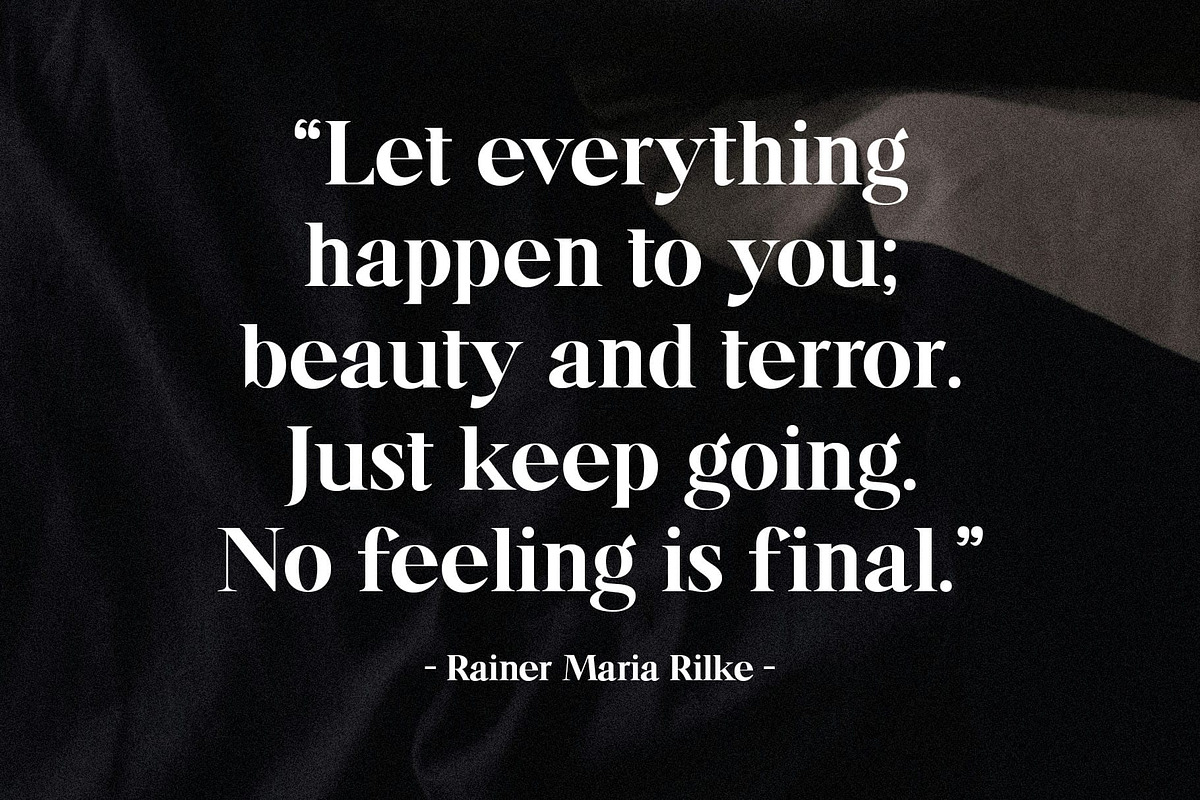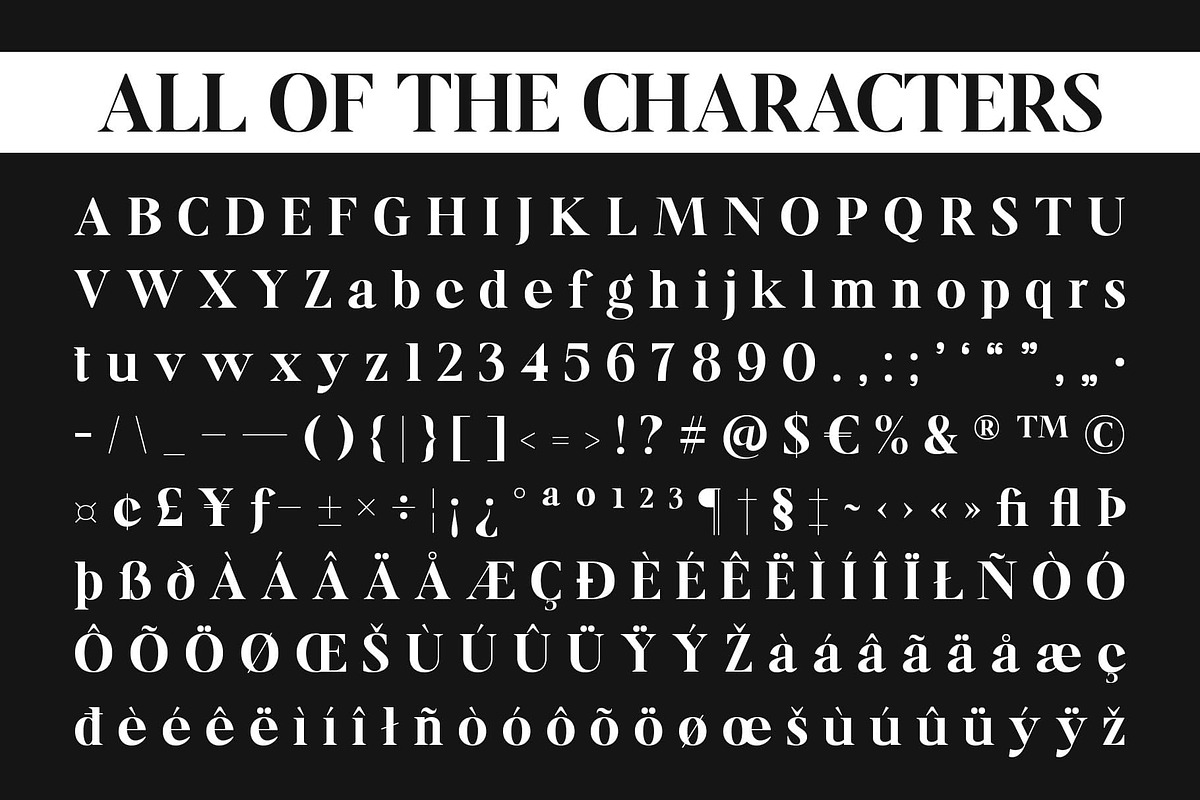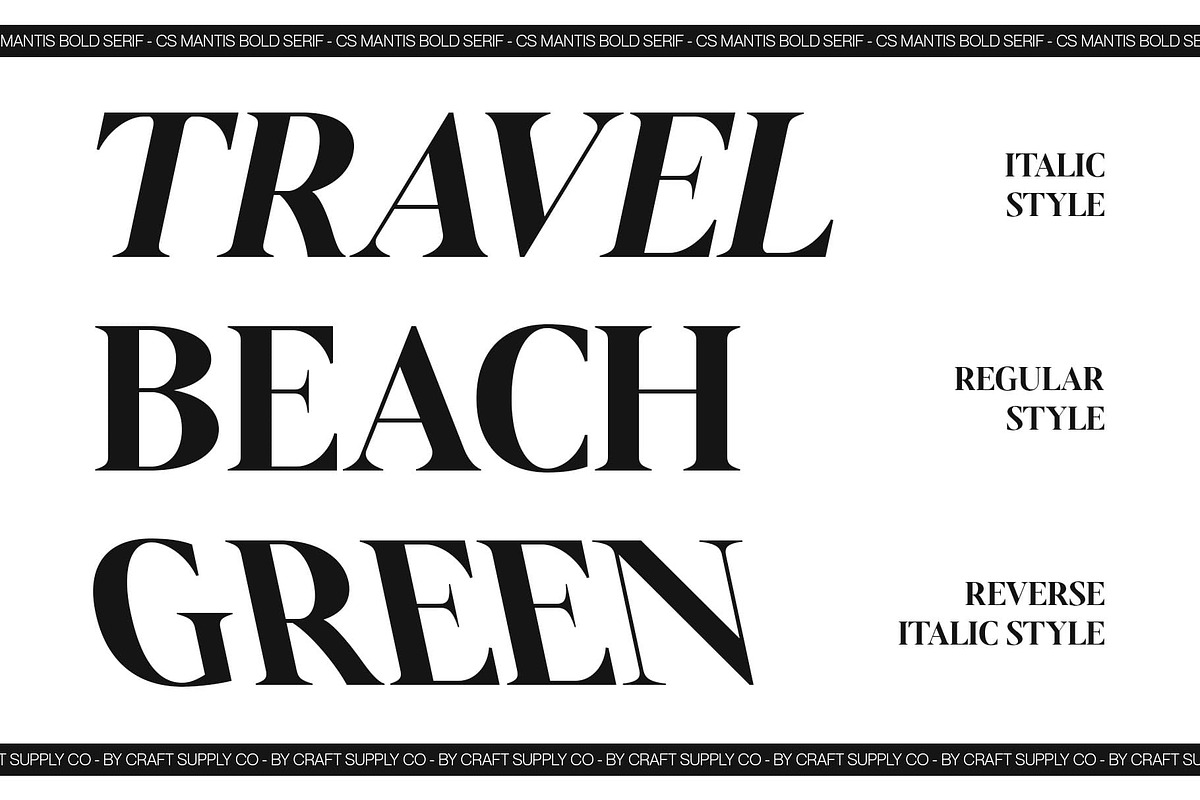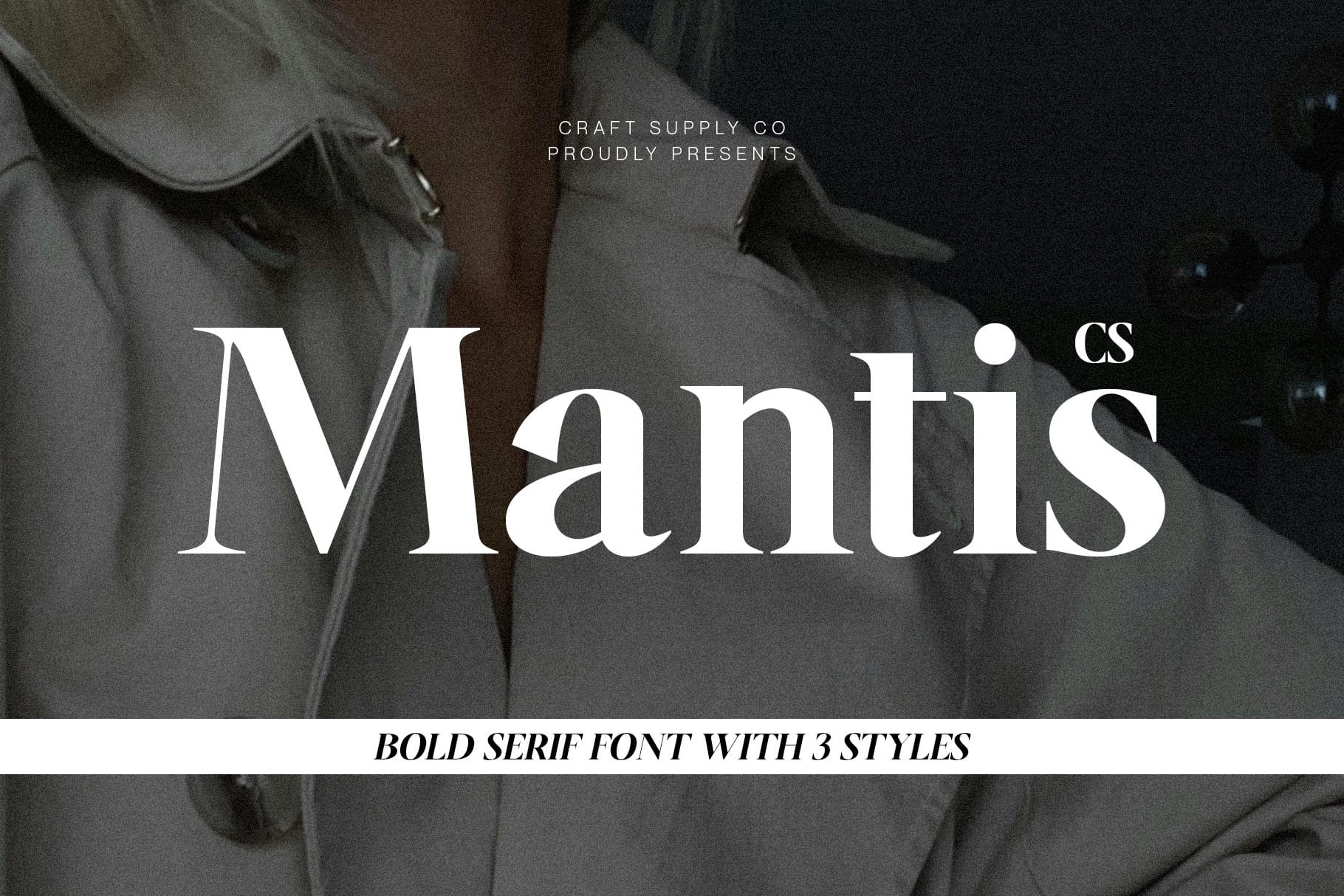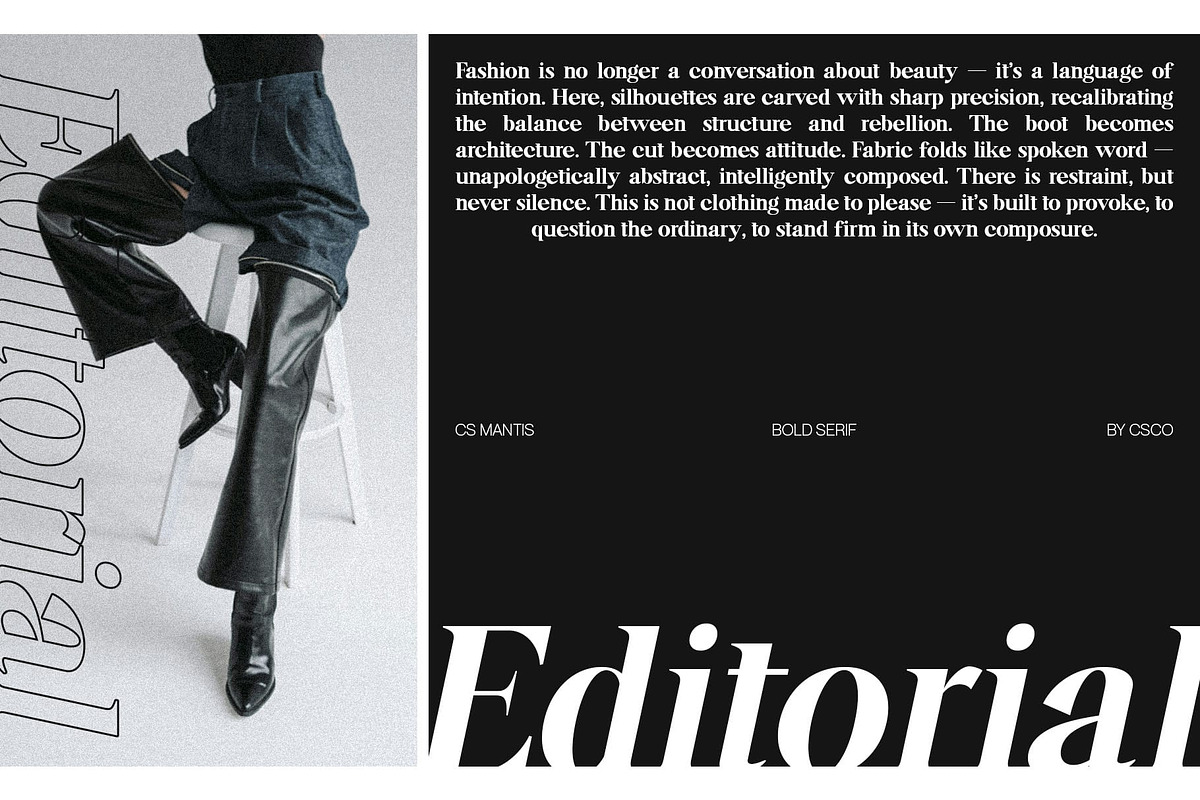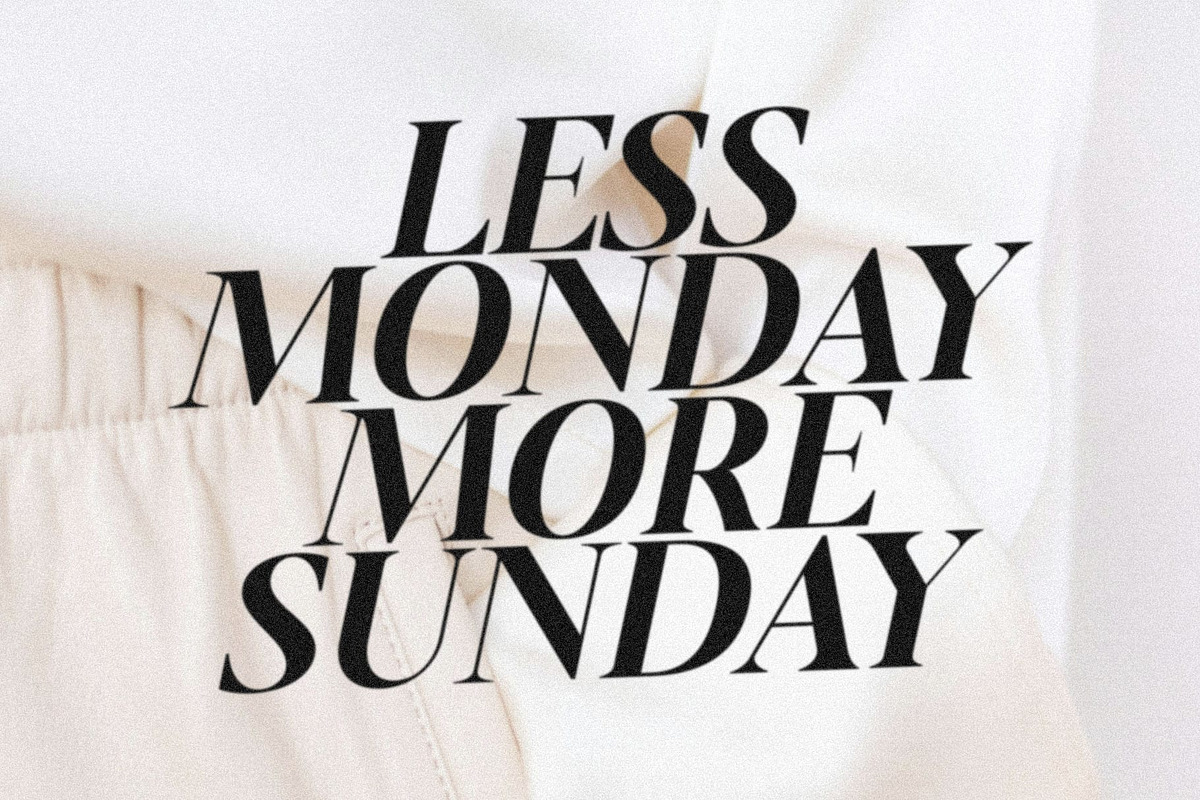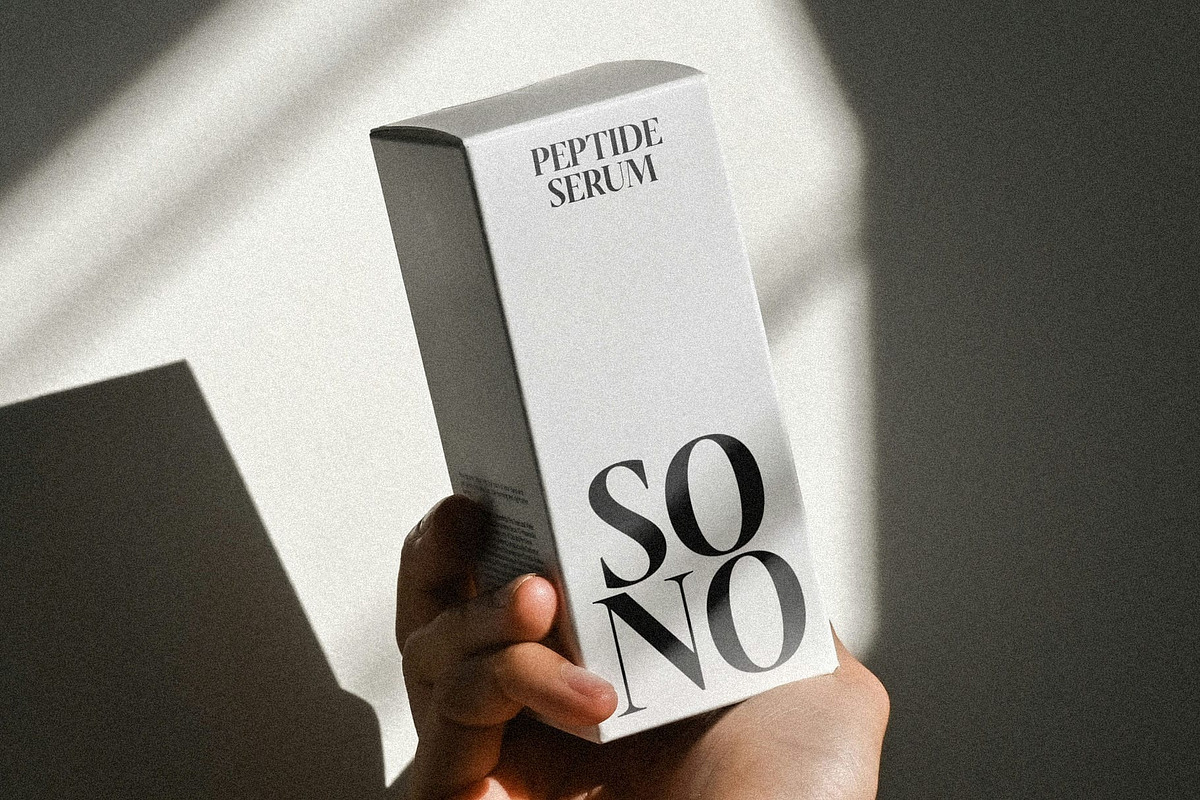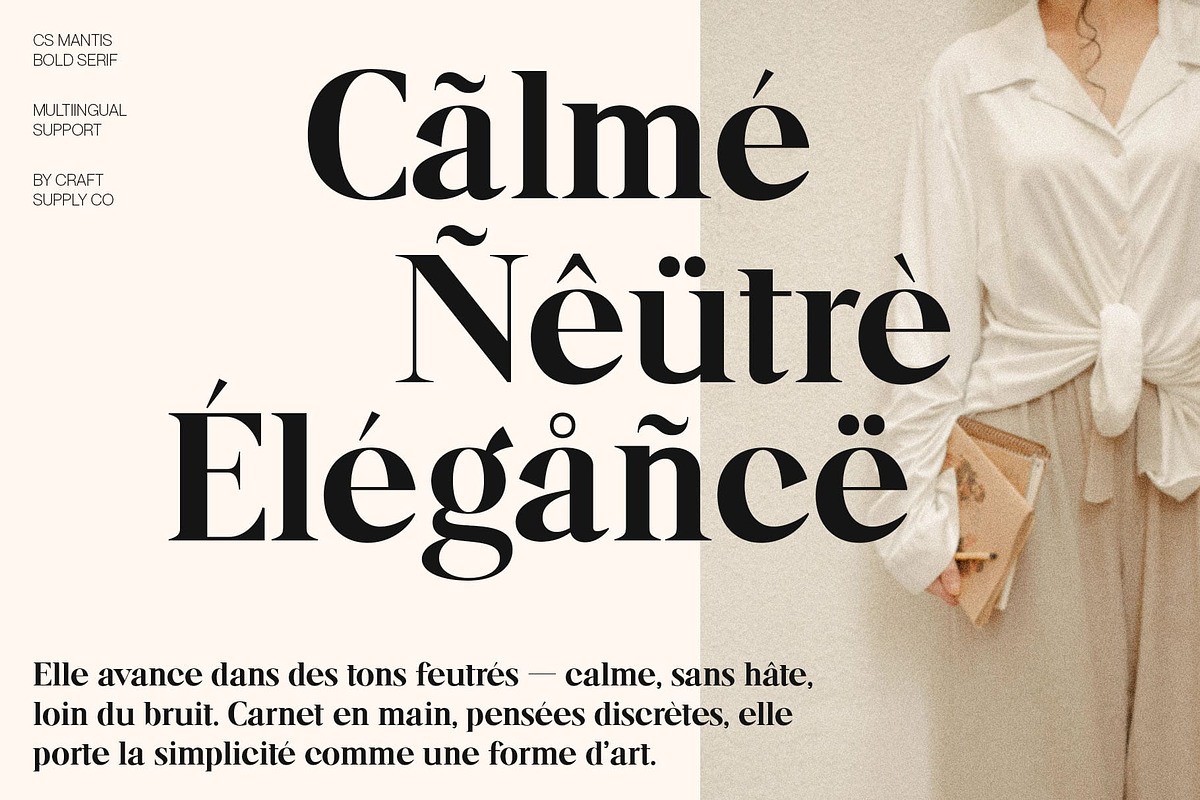
CS Mantis – Classy Serif Font
CS Mantis – Modern Elegance with Timeless Class
Contemporary Display Serif with Refined Style This is a contemporary display serif font that blends sophistication with a modern edge. Its clean lines and balanced proportions create a refined sense of style, making it the perfect choice for designers seeking both elegance and versatility. The font’s sleek character and subtle details bring a professional polish to any creative project.
Elegant Shapes for a Classy Impression Every curve and serif in this font is designed to exude grace and confidence. The combination of refined strokes and sharp precision gives it a classy yet approachable feel. This makes it ideal for projects that aim to project luxury, creativity, and modern professionalism without sacrificing readability.
Perfect for Logos, Titles, and Headlines Whether you’re designing a logo, crafting a bold headline, or creating elegant typographic compositions, this font offers a strong visual presence. Its distinctive serif structure captures attention while maintaining a harmonious flow, ensuring that every word feels both powerful and beautifully balanced.
A Fusion of Modernity and Grace This font redefines what it means to be a modern serif combining timeless beauty with contemporary clarity. It adapts seamlessly to a wide range of design aesthetics, from editorial and branding to digital and print. With its poised elegance and refined detail, this font stands as a font that embodies modern luxury and creative sophistication.